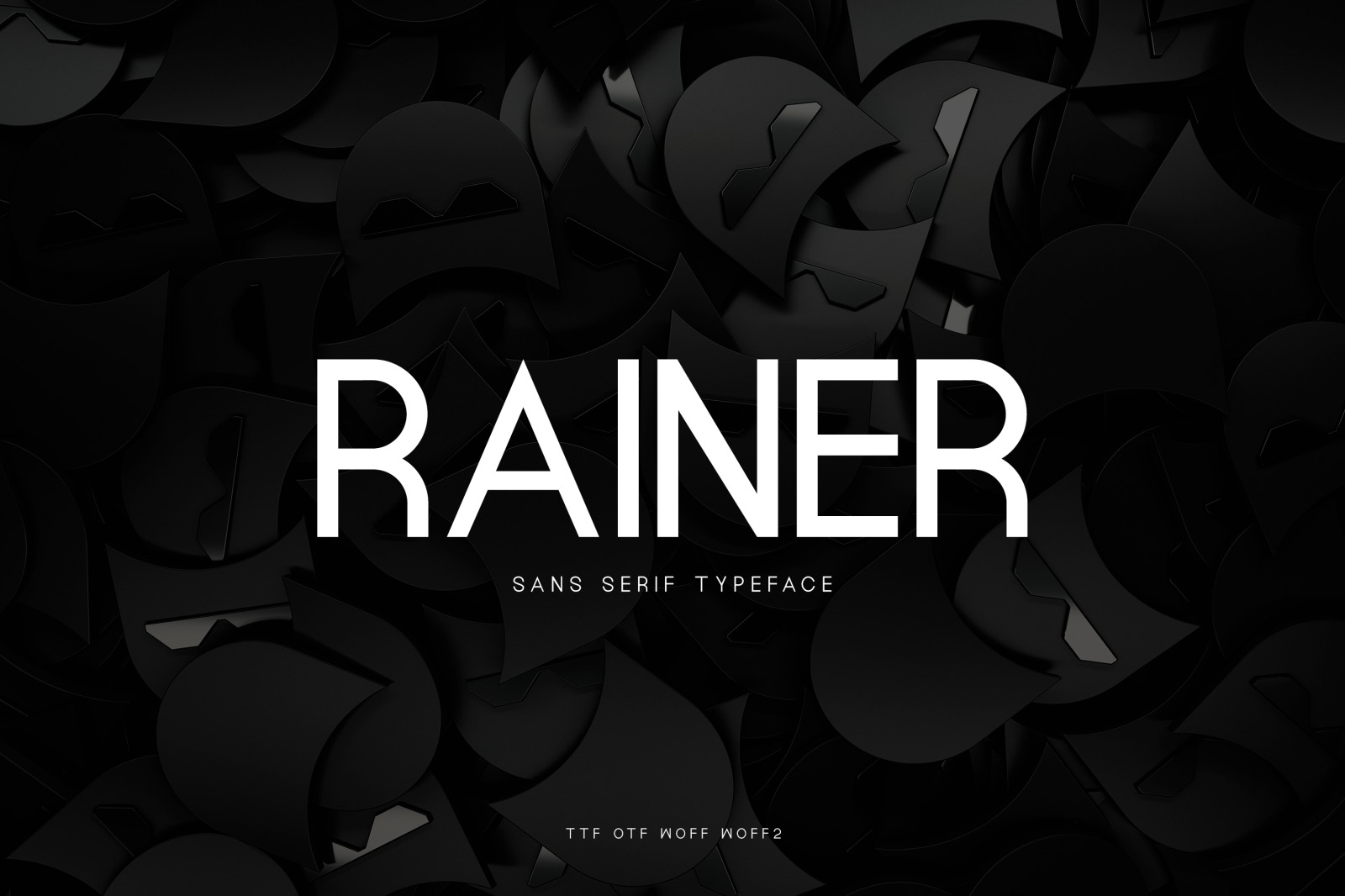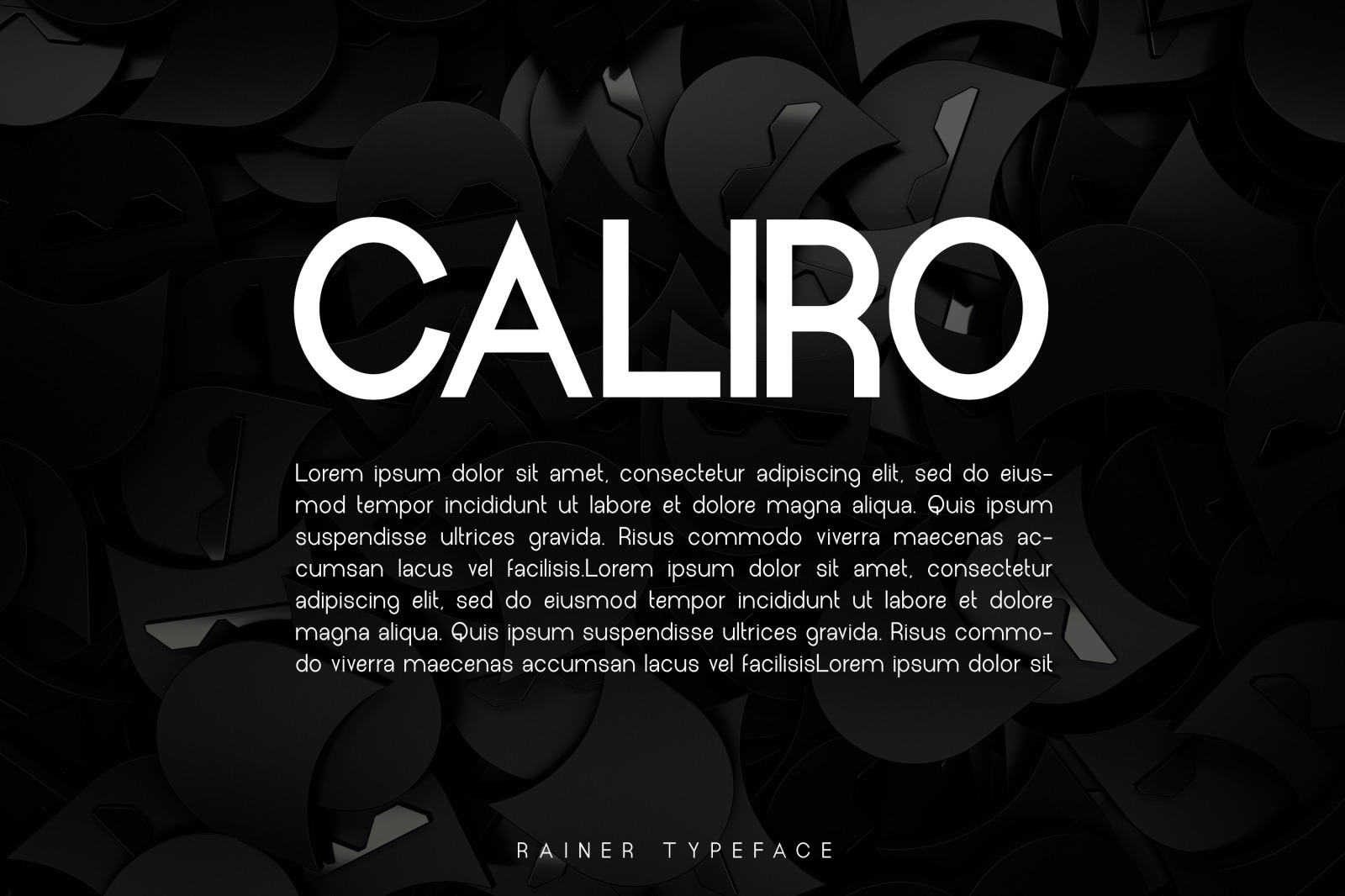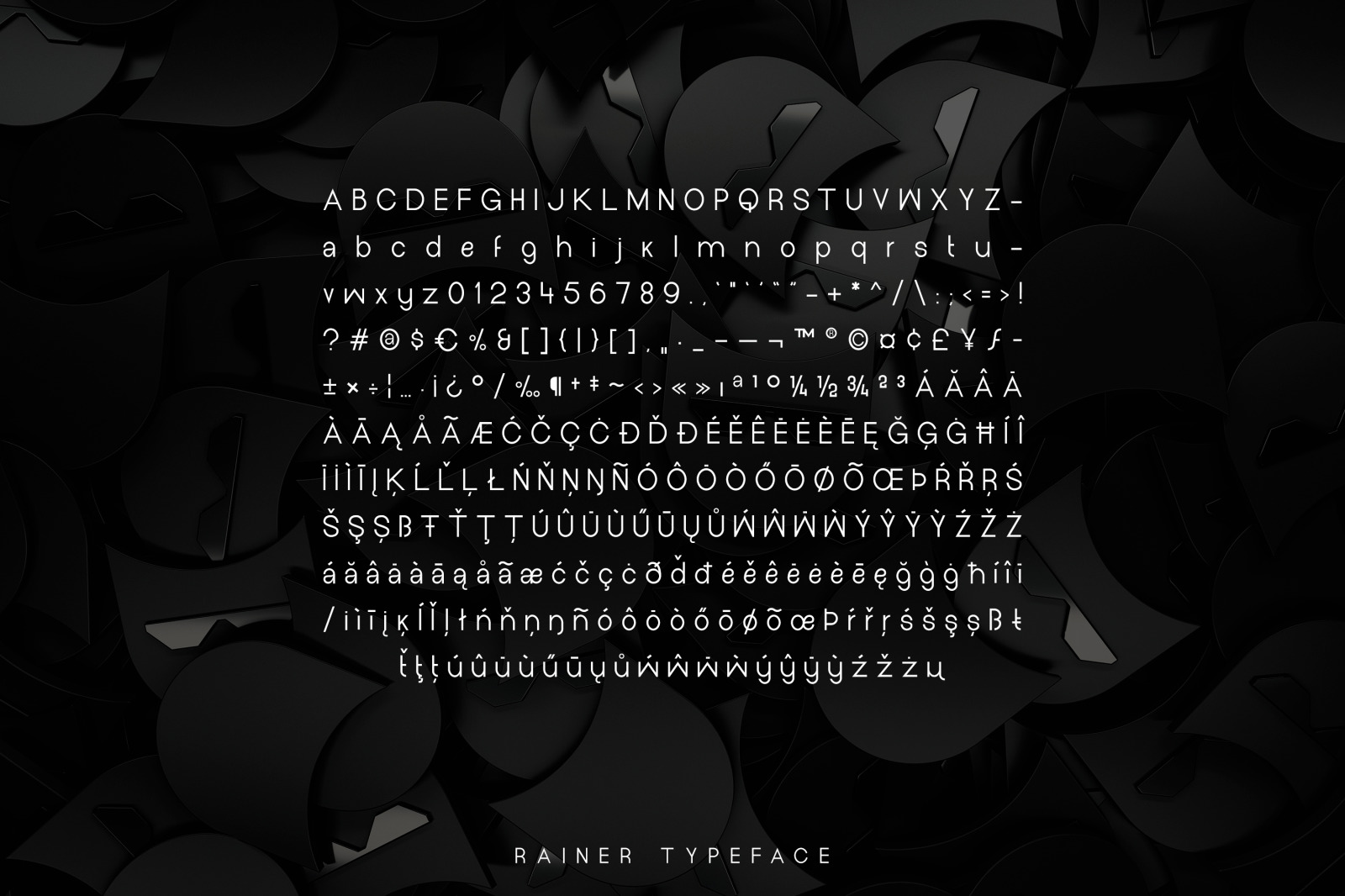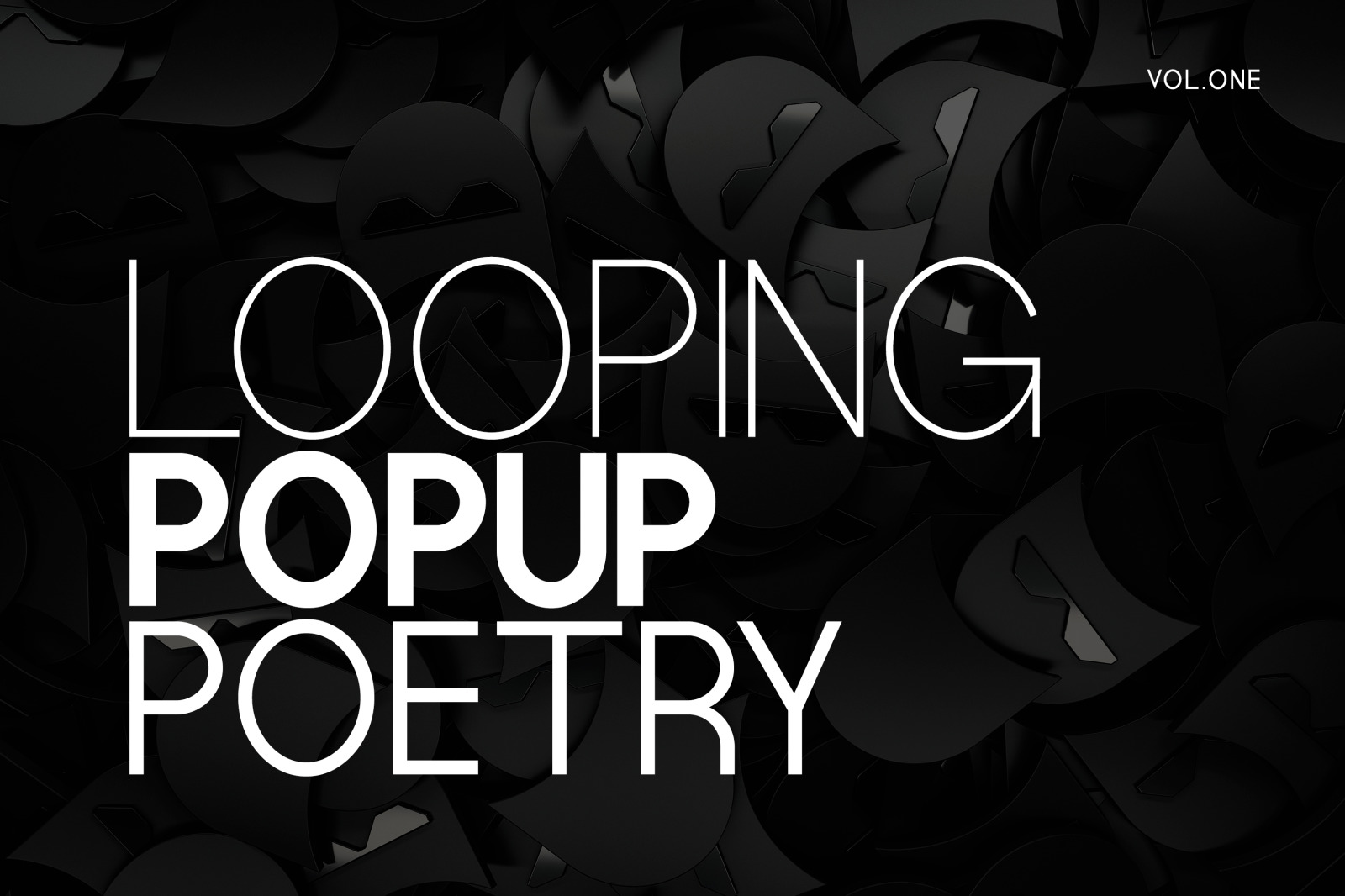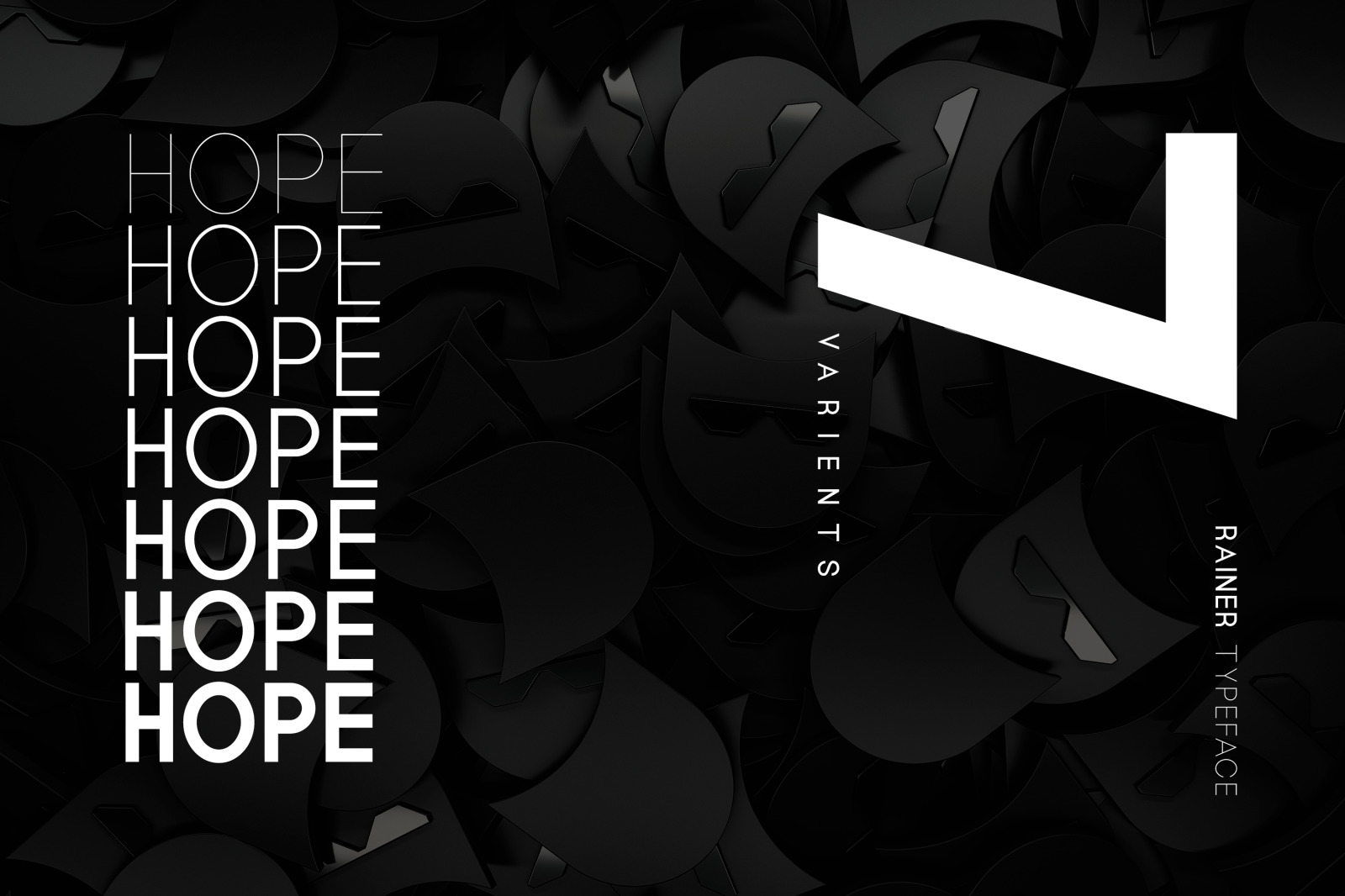
Rainer Font
Rainer is a clean and neat sans serif font. It has a simple, thin and smooth vibe and it will be a hit for any design that you want to add to this font. It has 7 variant. This multi variant font can be well suited for both headline and body text.
It contains 200+ glyphs with variants. You can create your text with normal characters and highlight bold characters and titles.
Features
Uppercase
lowercase
punctuations
numbers